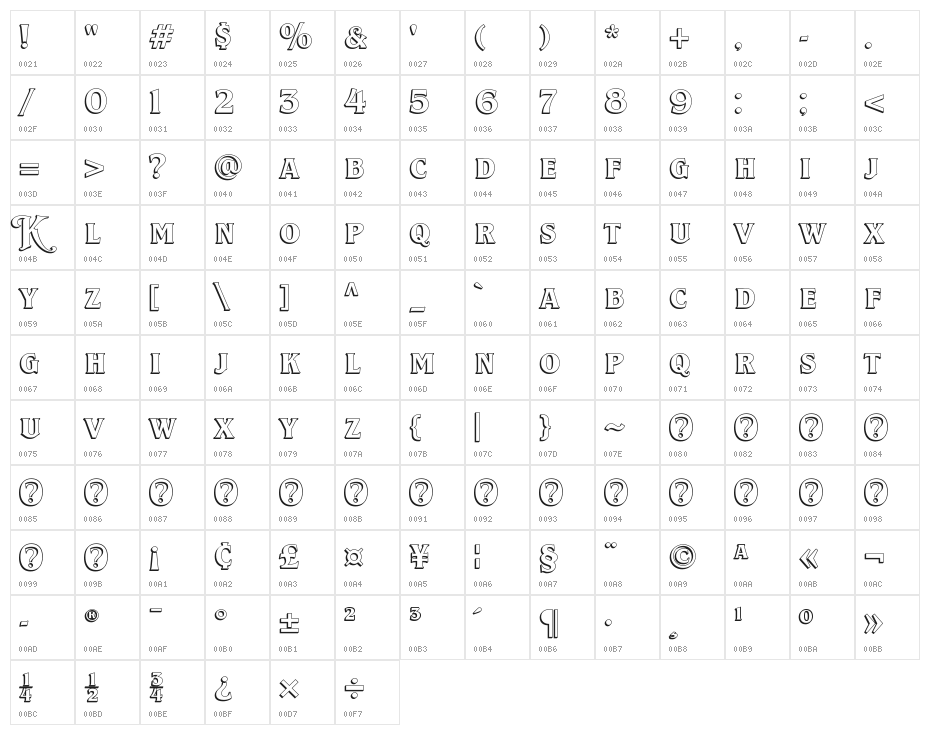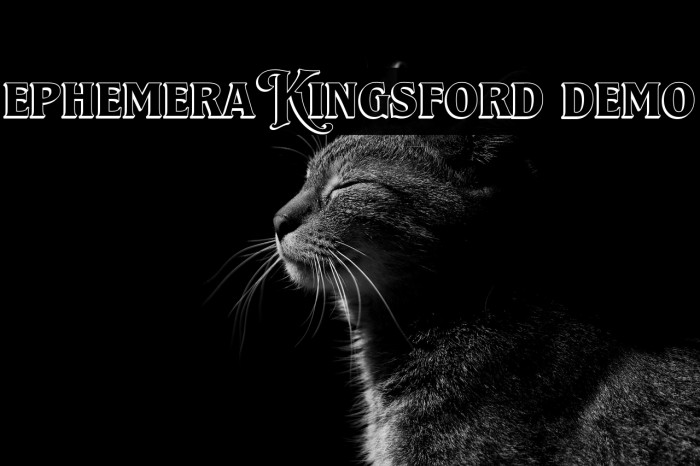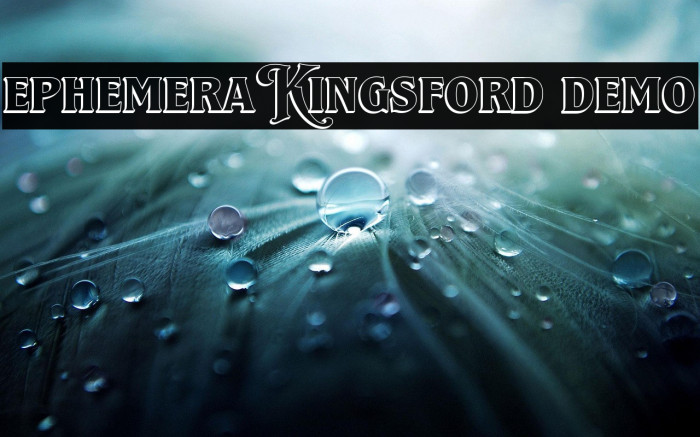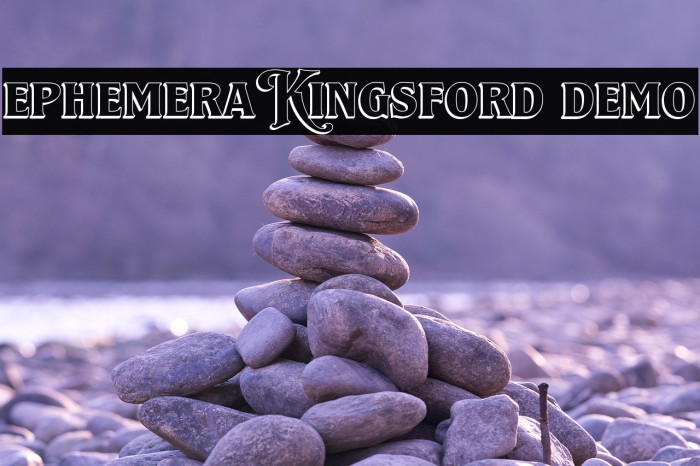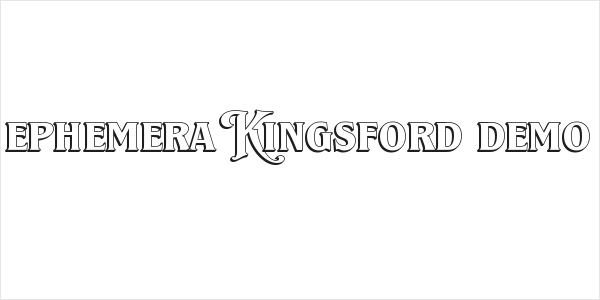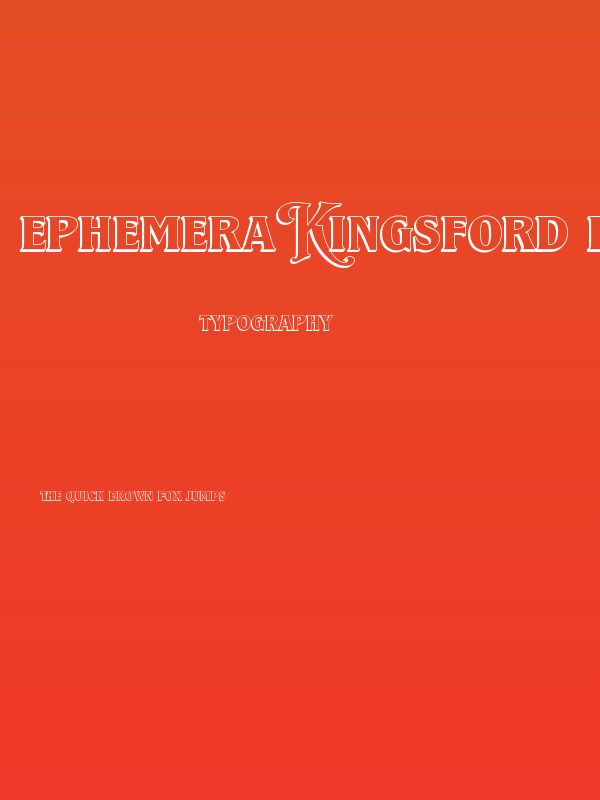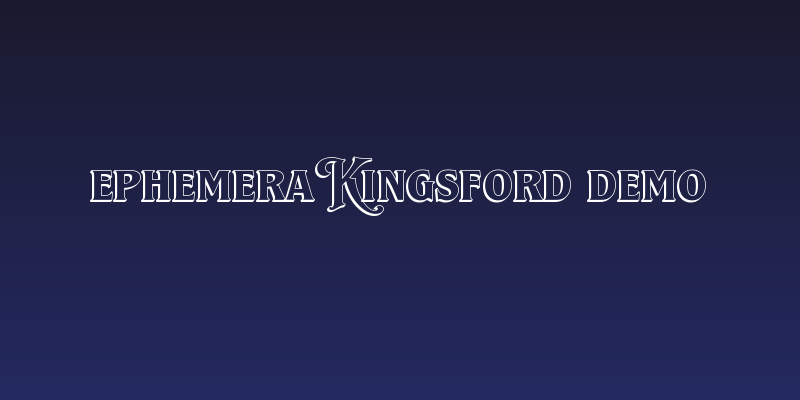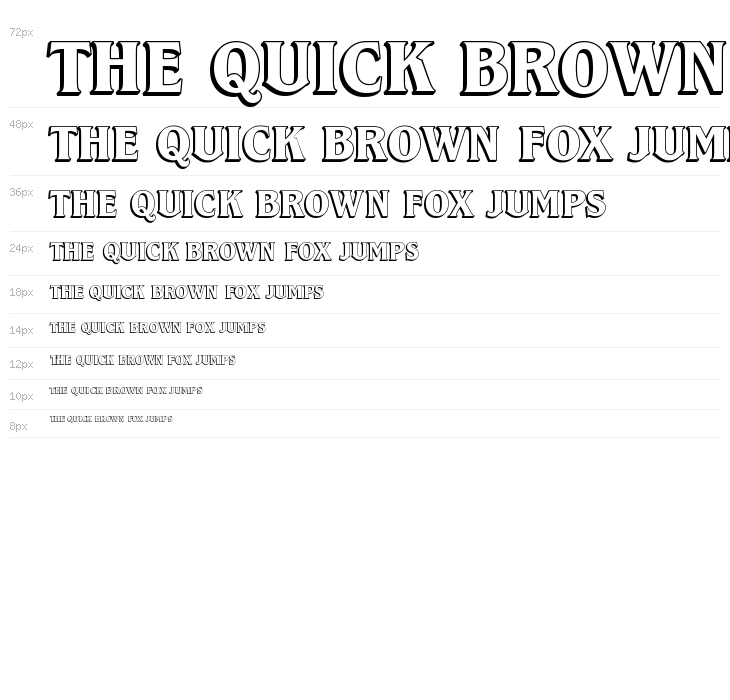
Ephemera Kingsford DEMO Font
Ephemera Kingsford DEMO Description
This font features a bold and decorative style with a strong presence. The uppercase letters are embellished with intricate serifs and flourishes, particularly noticeable in characters like 'K' and 'R'. The lowercase letters maintain a consistent style, complementing the uppercase with a slightly more subdued flair. Numbers are bold and clear, making them highly legible. The special characters are designed with the same decorative elements, ensuring a cohesive look across all glyphs. This font's unique style makes it suitable for projects that require a touch of elegance and sophistication.
| Proposed Projects | Ideal for branding, invitations, posters, and any design needing a touch of elegance. |